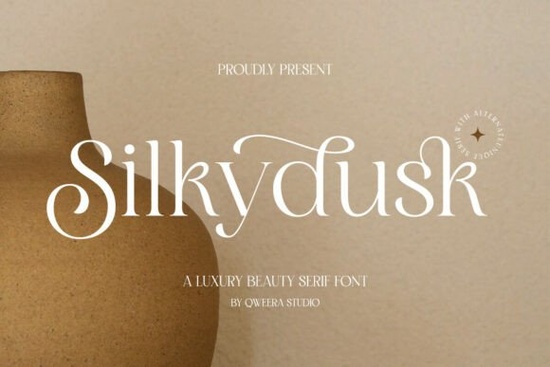
If you've been searching for a serif typeface that feels both modern and refined, Silkydusk is worth a close look. It's a luxury minimal serif font with smooth curves, elegant alternates, and clean proportions that work across branding, packaging, wedding stationery, and editorial layouts. Whether you're designing a logo for a boutique or laying out a fashion magazine, this font brings a polished, high-end quality without feeling stiff or overly traditional.
What Makes Silkydusk Different From Other Serif Fonts?
A lot of serif fonts lean either too classic or too trendy. Silkydusk sits in a comfortable middle ground. Its letterforms have graceful curves and balanced spacing, which means it reads well at both large display sizes and smaller body text. The alternates and ligatures give you flexibility to customize headlines and logos, so your designs don't look like they came from a template.
Here's what's included with the font:
- Alternate characters for more expressive typography
- Ligatures that connect letters naturally
- Multilingual support for international projects
This combination of features makes it practical for real-world use, not just mockups.
Who Is This Font Best Suited For?
Silkydusk works well for a range of creatives. Here are some people who tend to get a lot of use out of fonts like this:
- Small business owners building a brand identity from scratch especially in beauty, fashion, wellness, or lifestyle niches
- Print-on-demand sellers who need elegant typography for mugs, tote bags, and apparel designs
- Wedding stationery designers looking for something softer than a traditional script but still romantic
- Graphic designers working on magazine layouts, lookbooks, or product packaging
- Creative hobbyists who want their personal projects to look polished and intentional
It's particularly effective for logo design because the proportions stay clean even when scaled down to a favicon or social media profile picture.
How Does Silkydusk Compare to Similar Fonts?
If you're browsing Silkydusk alongside other serif options on Creative Fabrica, you might also come across fonts like Montage or Old String. Each has a different personality. Montage leans more editorial with a structured feel, while Old String has a vintage, textured character. Silkydusk is softer and more contemporary it fits projects where you want understated luxury rather than a bold or retro aesthetic.
That said, pairing fonts is part of the fun. You could use the Silkydusk typeface for headings and combine it with a clean sans-serif for body copy. This kind of contrast keeps layouts balanced and easy to read.
What Kinds of Projects Does It Work Well For?
Because of its minimal elegance, Silkydusk adapts to many design contexts:
- Brand logos especially for fashion, skincare, jewelry, and interior design businesses
- Social media graphics quotes, announcements, and promotional posts that need a refined look
- Product packaging labels, boxes, and tags for premium or handmade goods
- Wedding invitations and event stationery menus, programs, save-the-dates
- Editorial design magazine headlines, book covers, and blog graphics
It also performs well for print-on-demand products. Designs using elegant serif fonts tend to attract buyers looking for something more sophisticated than novelty or script lettering.
Tips for Getting the Most Out of This Font
A few practical suggestions if you decide to use Silkydusk in your work:
- Experiment with the alternates. Swapping out a single letter in a logo can make a big difference in personality.
- Use generous spacing. Luxury fonts like this breathe better with slightly increased letter-spacing, especially in all-caps settings.
- Pair it with a geometric sans-serif. Fonts like Montserrat or Poppins complement Silkydusk without competing for attention.
- Test it in context. Set it on a mockup a business card, a product label, or a social post before committing. Typography can feel very different in a layout versus a font preview.